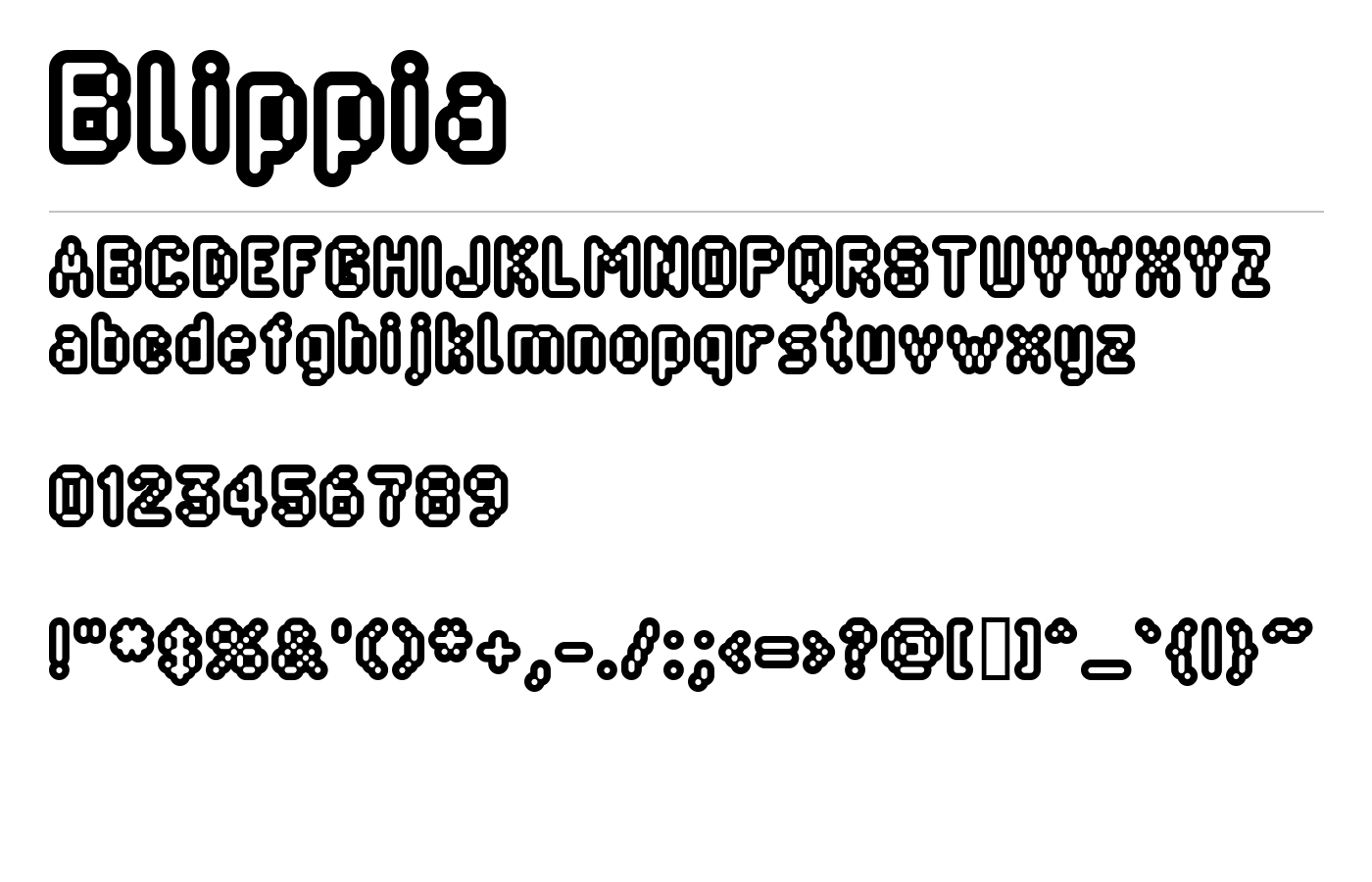
Blippia is a bold, playful sans serif font with rounded, bubble-like letterforms that create a friendly and modern look. Its unique double-line structure and geometric shapes make it perfect for eye-catching logos, posters, and branding that aims to feel fun and approachable. This font works well in display settings where its distinctive style can stand out and bring a lively, creative energy.
Blippia Font
About Blippia Font